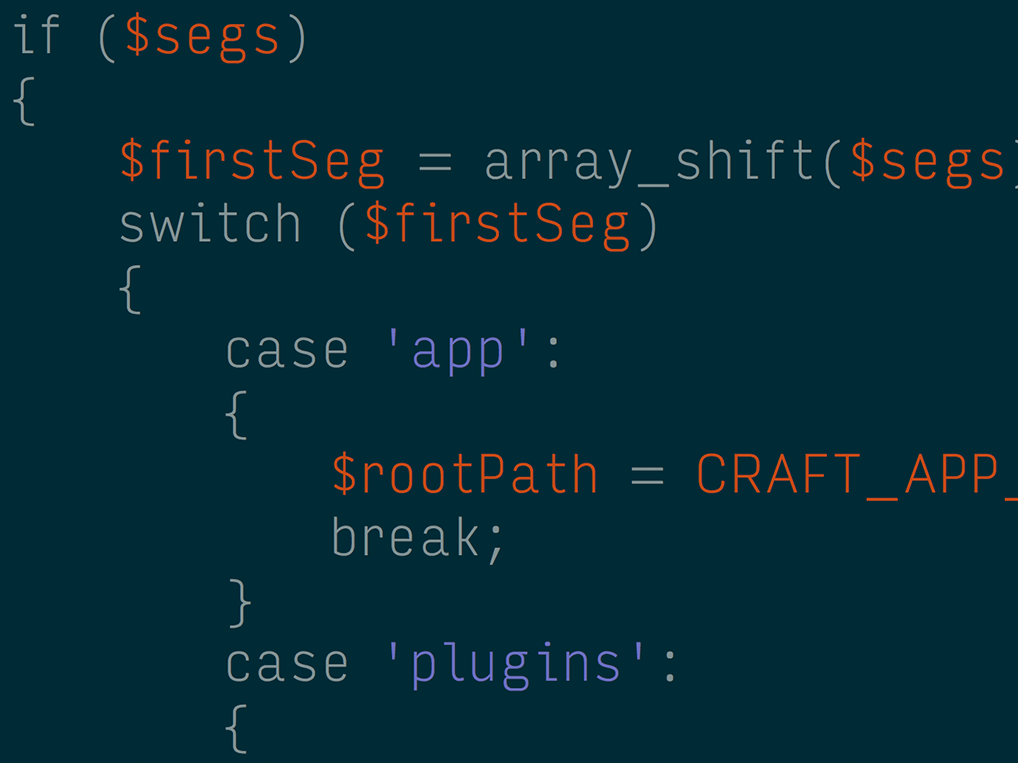
Input 1.1: David Jonathan Ross’s elegant font for coding has new characters that users have asked for.
Input 1.1
Based on user feedback, we have added new characters, including:
- Alternate curly brackets-they’re a little less, well, curly
- An alternate zero, with no dot or slash in the middle, but still distinct from the capital O
- Powerline symbols, for stylish statuslines with Powerline
Input in Use
It has been incredible to see all the ways that Input is being used, from responsive themes for source code editors to elaborate data displays. Here are a few published uses: